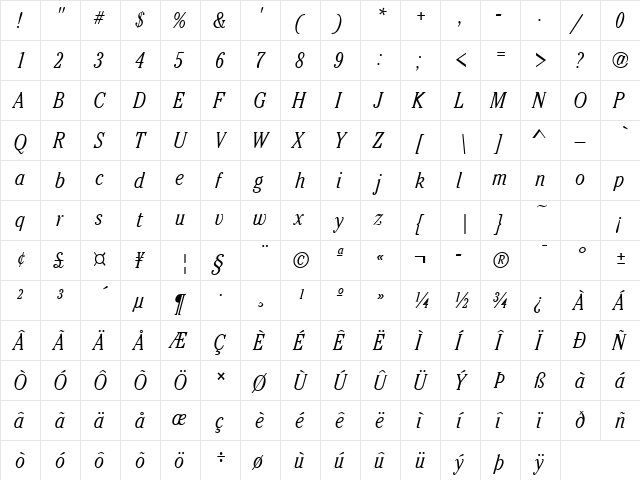
CheltenhamCondLH Italic Font Preview
CheltenhamCondLH Italic
Design Context for CheltenhamCondLH Typeface
CheltenhamCondLH takes a measured approach to typography — its balanced proportions and neutral character make it a reliable workhorse for both digital and print work. The dynamic lean of this cut emphasises speed and emphasis in any layout. Its narrow stance lets it pack a punch even in space-constrained designs.
Pro Tip: Use CheltenhamCondLH for emphasis, pull quotes, and subheadings where its slanted energy can add rhythm to the layout.